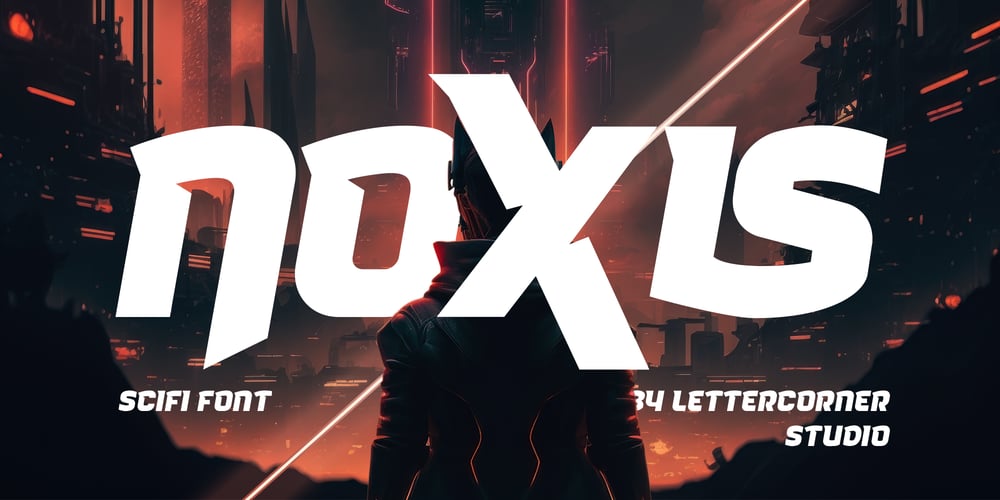
Noxis Font Family was designed by Muhammad Afif Ersya and published by Mevstory Studio. Noxis contains 2 styles and family package options. Noxis is a futuristic font, a font inspired by the visual of technology that we can find from logo, sci-fi movies, games, and the present gadgets. Designed with minimalist style and unique letterforms, a perfect choice to use on logos, labels, posters, packaging, books, movies, presentations, games, and much more! Noxiscomplete with some elegant touch that give your design looks more futuristic and dynamic.